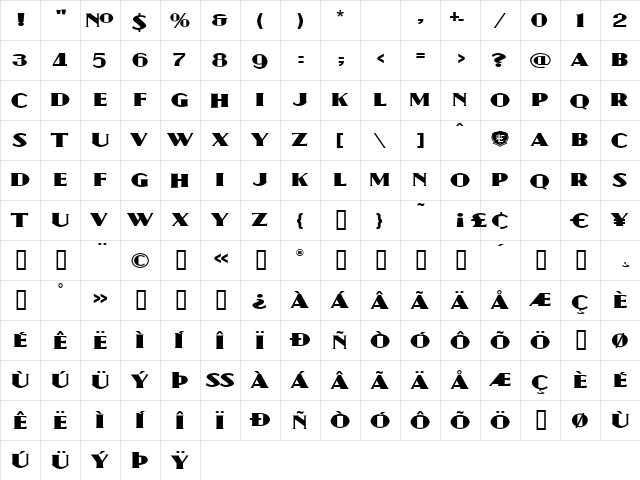
LHF Bulldog Regular
Design Context for LHF Bulldog Typeface
LHF Bulldog is a composed and adaptable typeface that performs quietly and consistently across a wide range of design contexts.